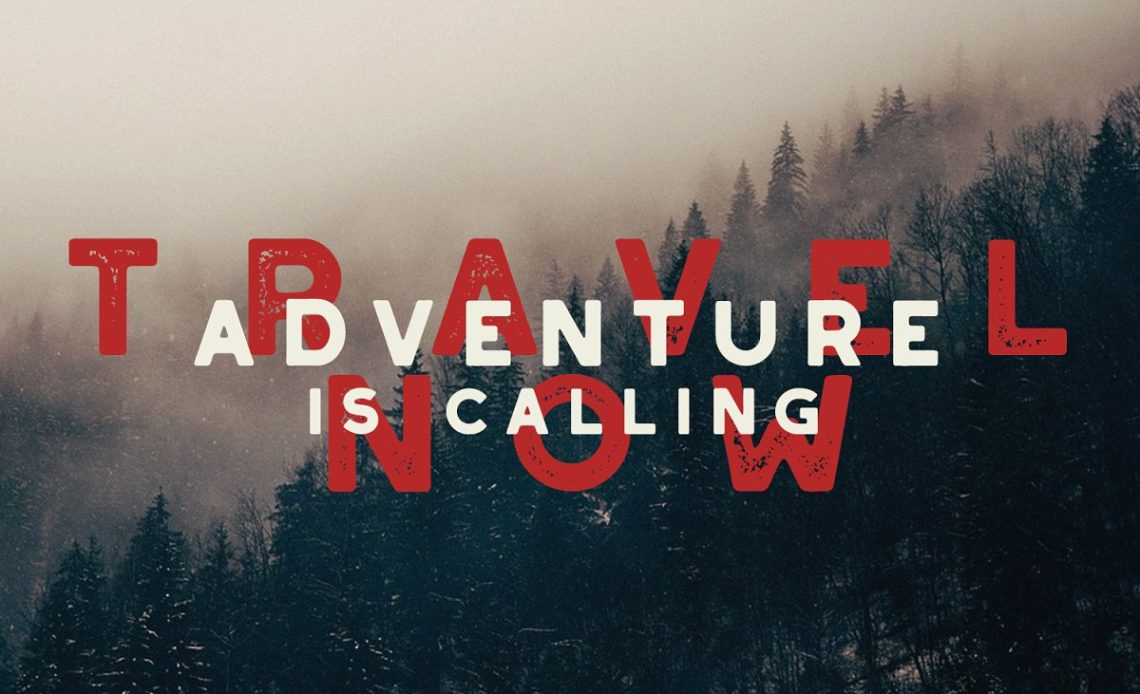
Welcome to the Tofino Font Family, a sans-serif font created by the talented designer Greg Nicholls. This font family is inspired by the beautiful beaches of the Pacific Northwest, and it’s perfect for anyone looking to add a touch of organic feel to their designs.
The Tofino Font Family is a collection of two fonts that work harmoniously to create stunning designs. The imperfect, rounded edges of each letter make the font feel more natural and organic. Greg Nicholls has spent a considerable amount of time perfecting every letter, ensuring that the font works perfectly for both large titles and small text.
One of the unique features of the Tofino Font Family is its versatility. It’s great for posters, web banners, and it complements other fonts beautifully. You won't need to switch to other fonts to complete your project. The Tofino Font Family is all you need.
The Tofino Font Family also comes with a grunge version that has a stamp/grunge effect. This version gives your designs a little more detail and texture, making it perfect for titles. The regular version has slightly rounded, imperfect edges that add character and an organic feel to the font.
We understand the importance of language support, so we've included a wide range of additional characters to cover different languages. With the Tofino Font Family, you don't have to worry about language barriers. You can create beautiful designs that can be understood by everyone.
In summary, the Tofino Font Family is perfect for anyone looking to add a touch of natural and organic feel to their designs. It's versatile, easy to use, and comes in both grunge and regular versions. It's time to take your designs to the next level with the Tofino Font Family.